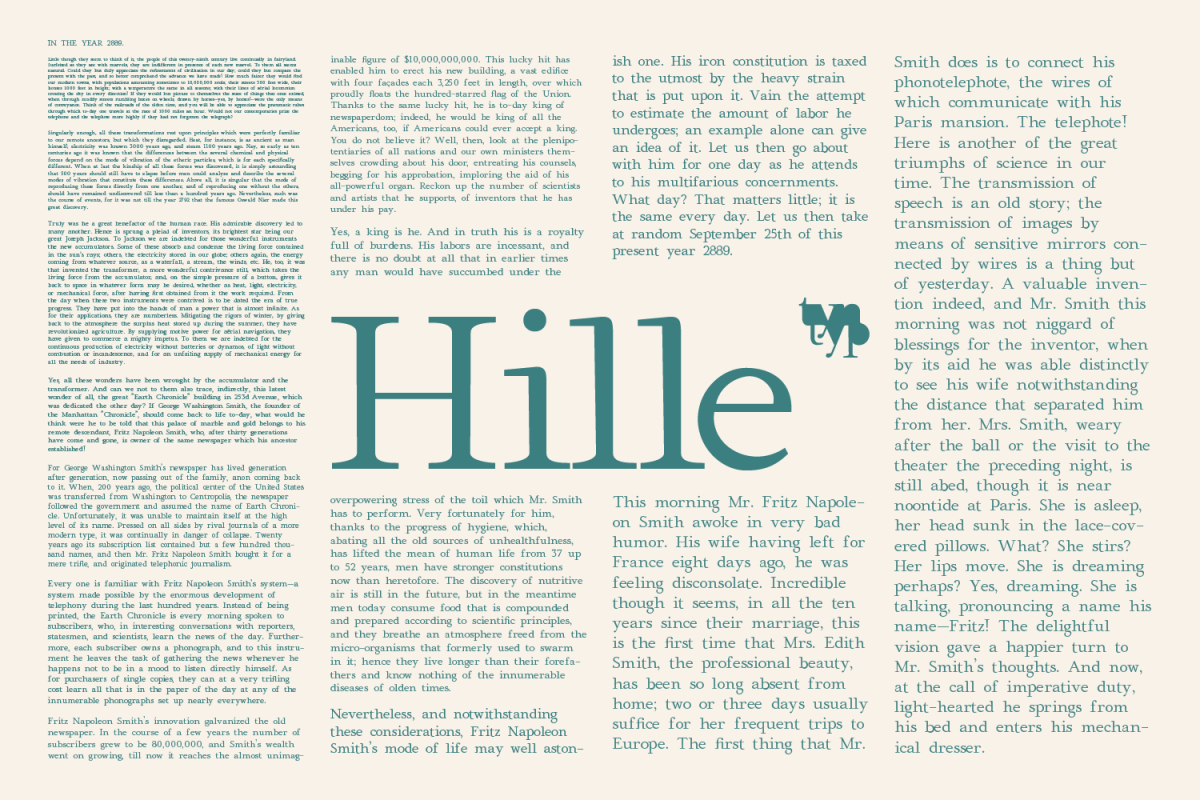
Hille
Inspired by typefaces designed in the Midlands during the early days of movable type. With crisp clear serifs and well balanced characters, Hille is suitable for a range of purposes.
The name is derived from Easy Hill the land on which the home of John Baskerville once stood.
The Hille typeface is designed to mimic a pen based script whilst incorporating more modern twists, and stretching the rules with digital processes. This allows characters to have a traditional form.